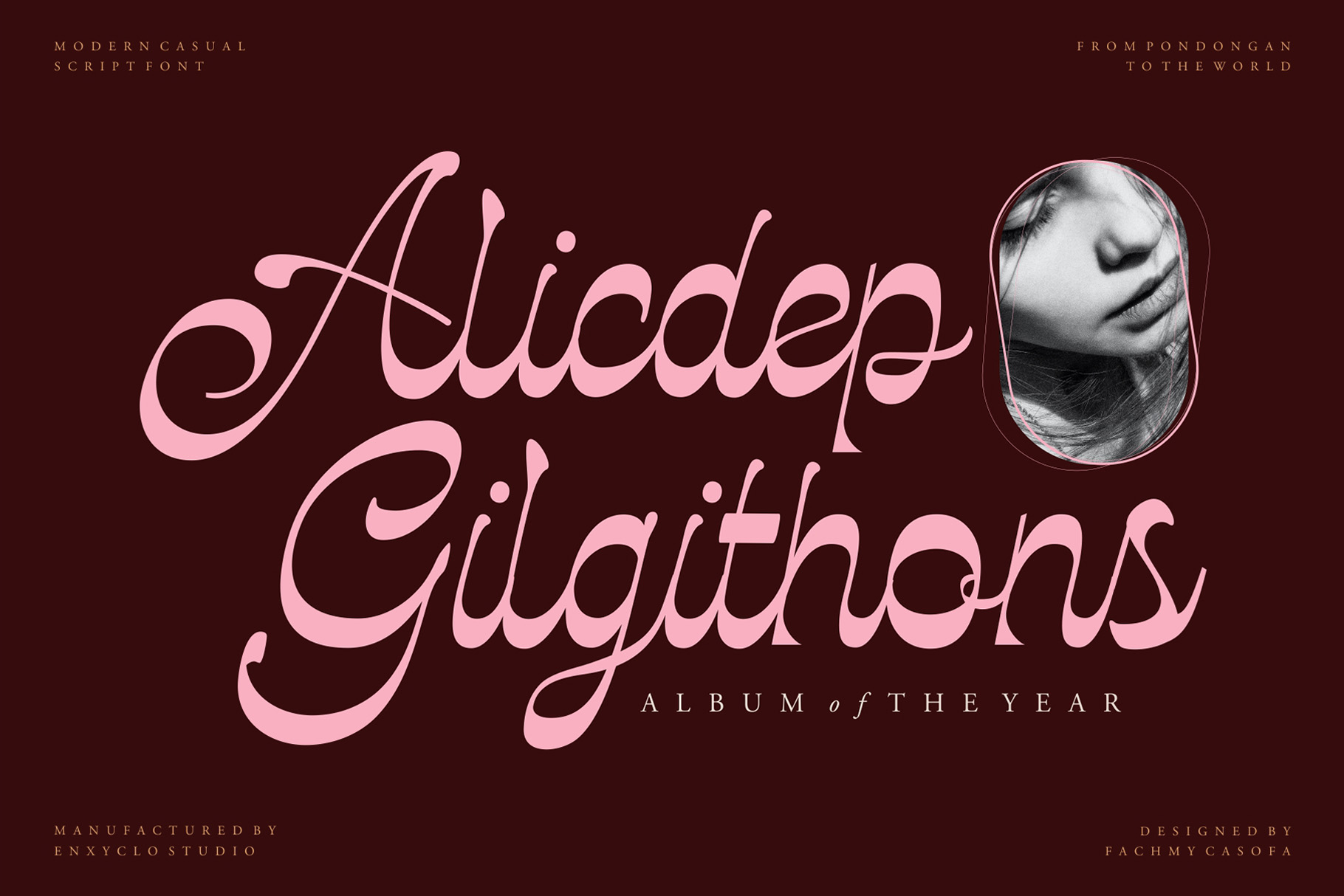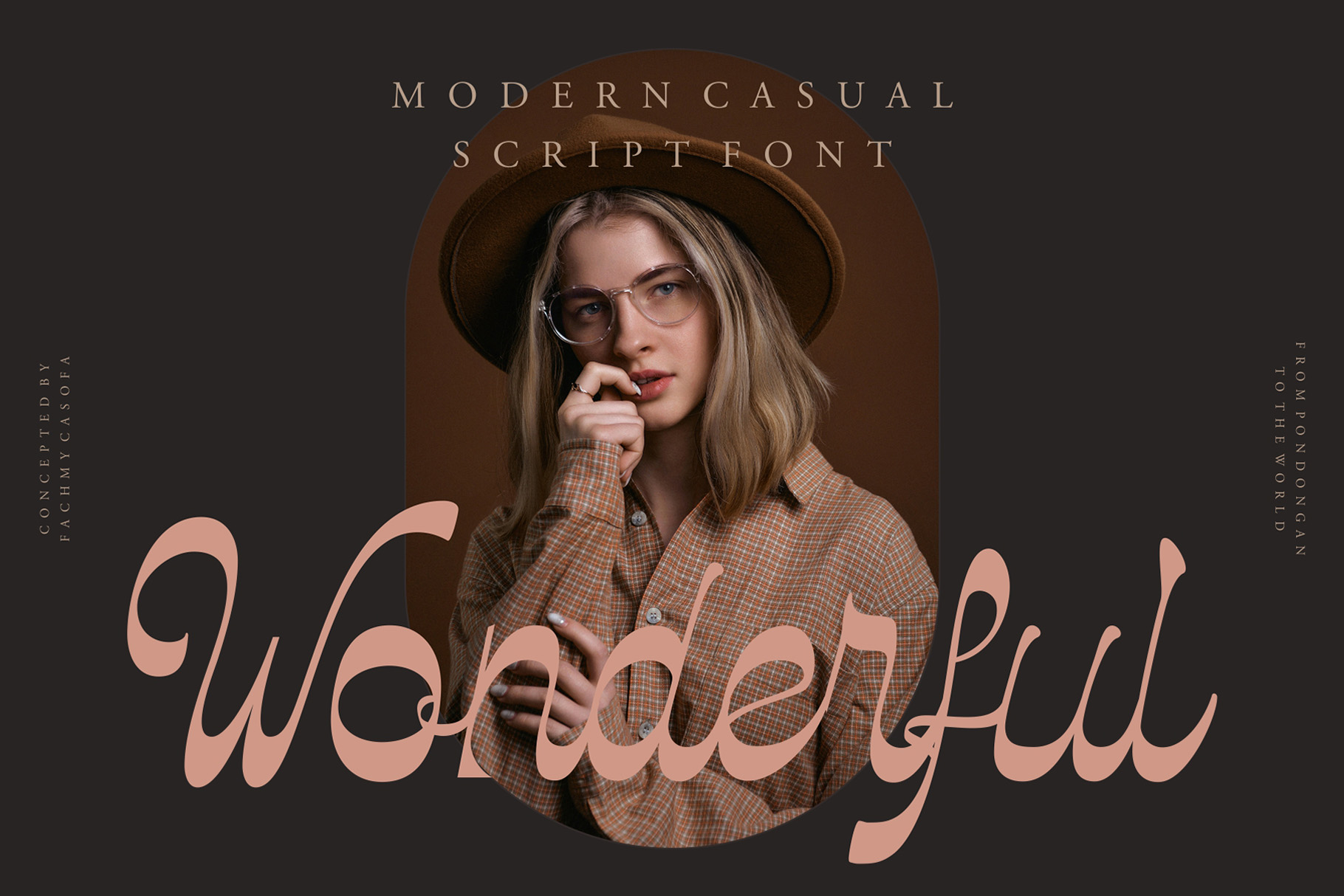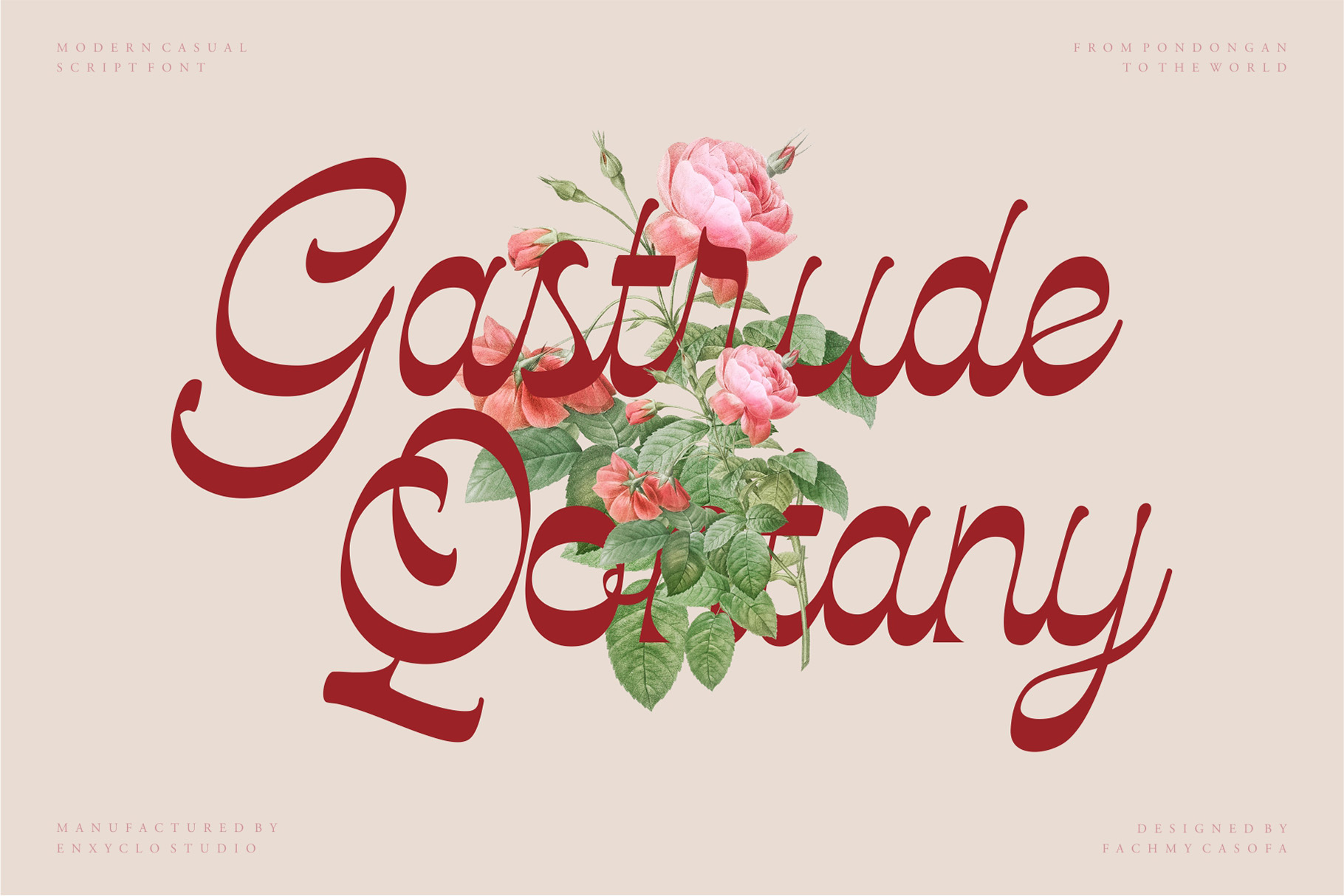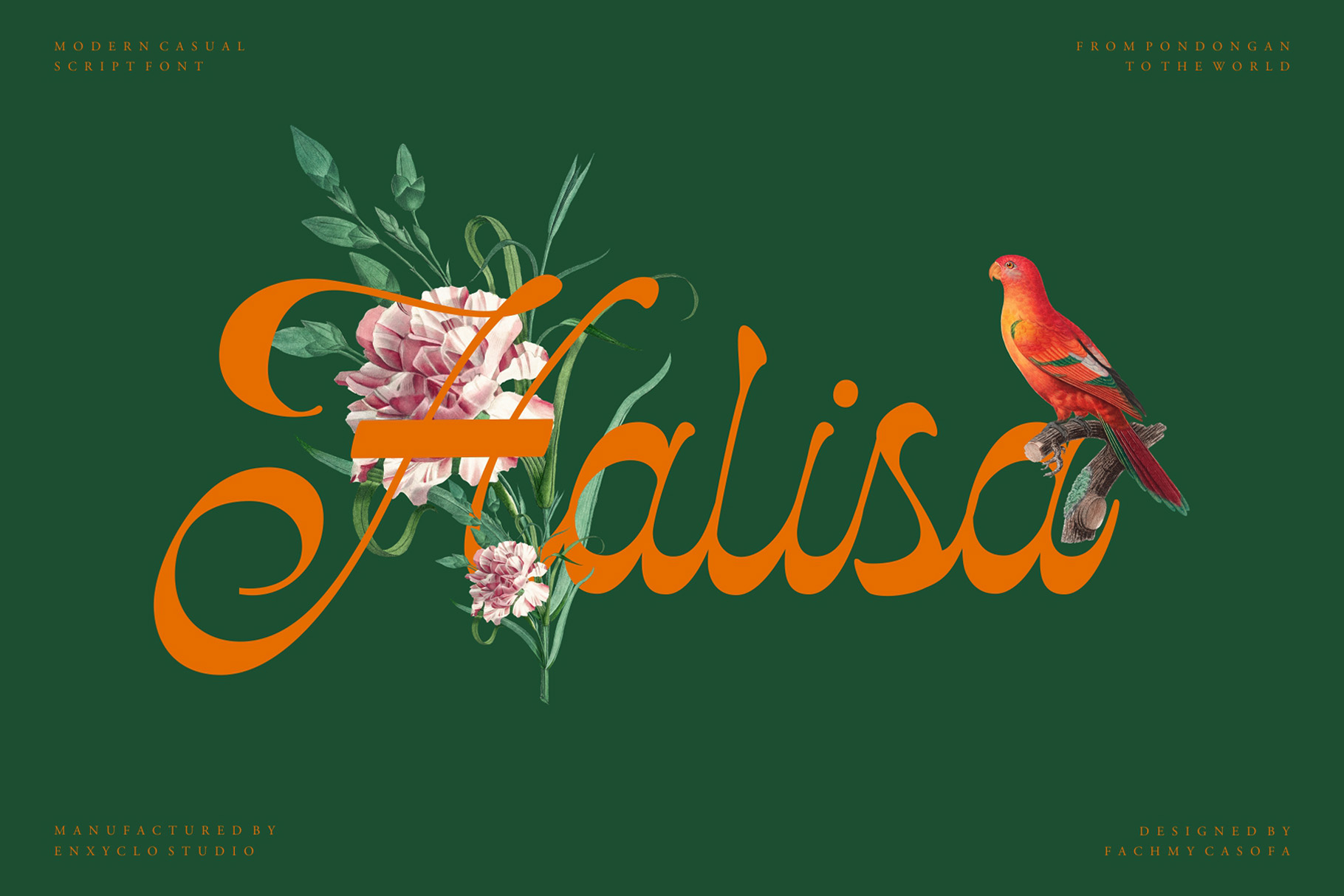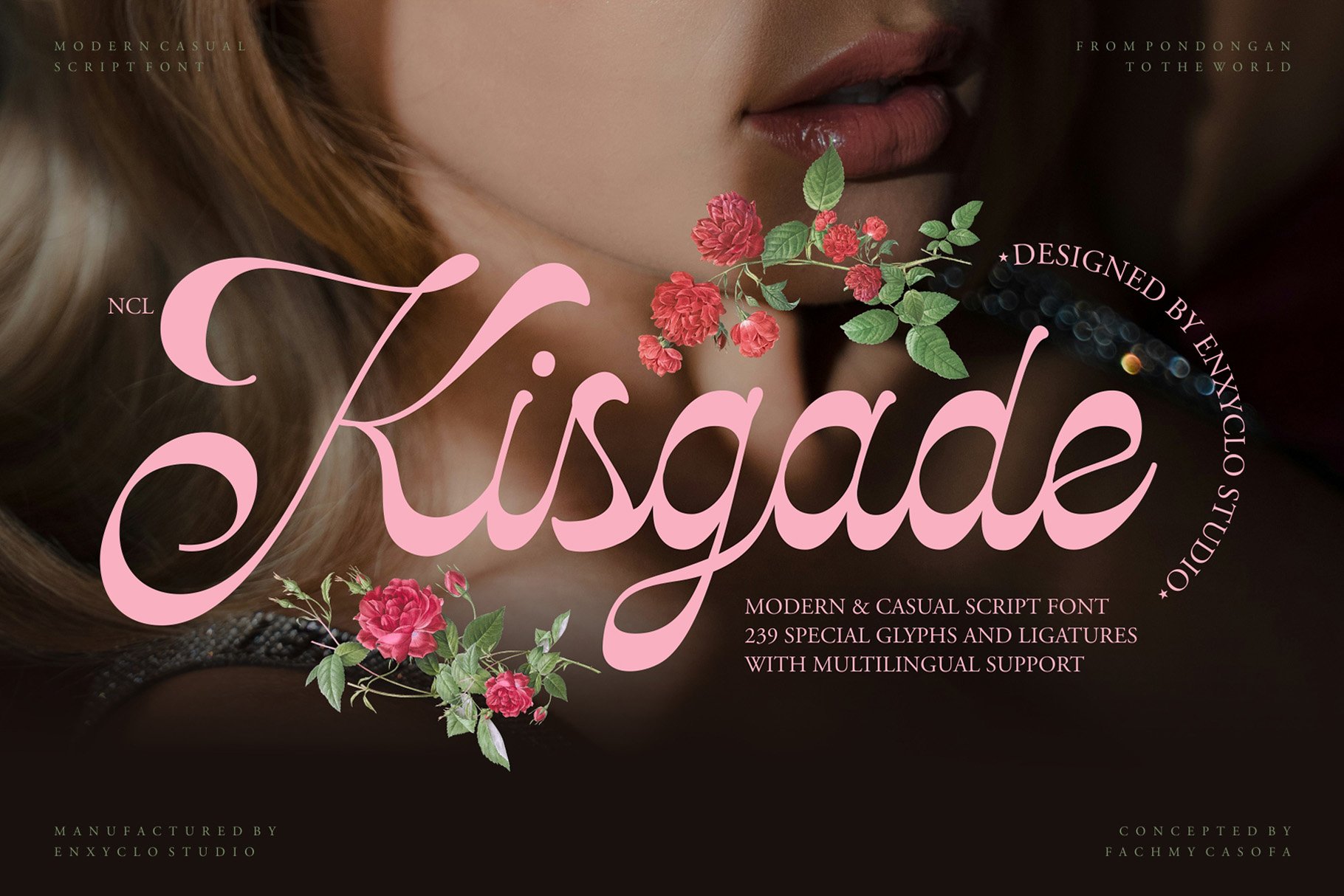
Kisgade Font
Kisgade is a sleek and contemporary serif font with a refined yet bold presence. Its sharp serifs, balanced proportions, and subtle curves create a sophisticated aesthetic, perfect for branding, editorial layouts, and luxury designs. Combining modern elegance with timeless charm, Kisgade delivers high readability and a distinct personality, making it an excellent choice for impactful and stylish typography.